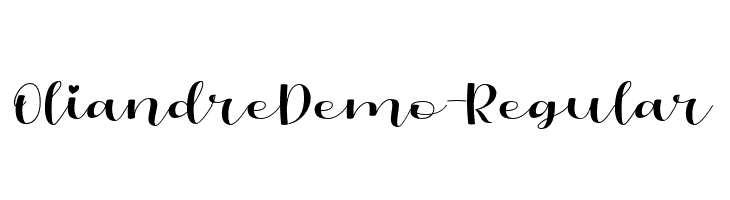
A bold, expressive handwritten font with artistic strokes and flowing curves.
A playful, handwritten script font with medium contrast and dynamic strokes.
A playful, flowing script font with smooth, continuous strokes.
A modern, elegant script font with a flowing cursive style.
A decorative and elegant script font with modern flourishes.
An elegant and decorative font with whimsical curves and intricate details.
A smooth, flowing script font with a natural handwriting style.
A flowing, elegant cursive script with consistent stroke width.